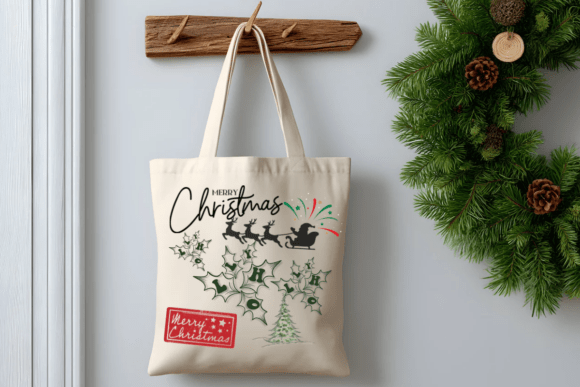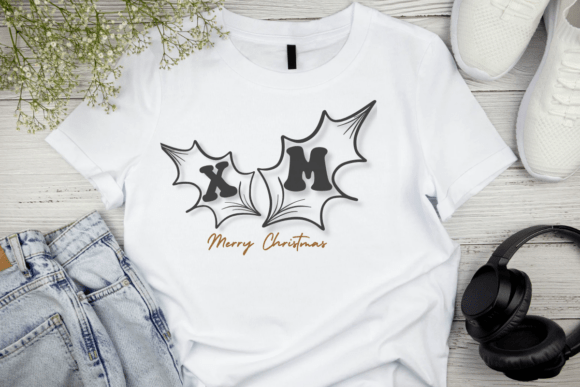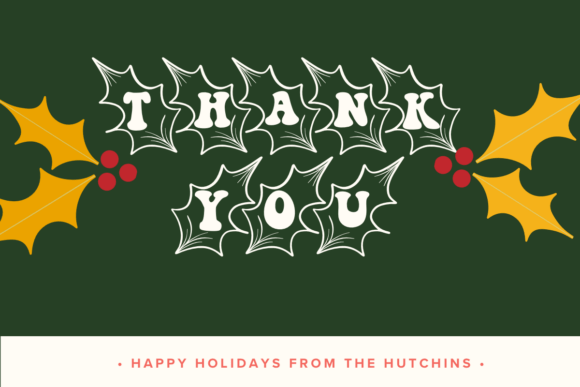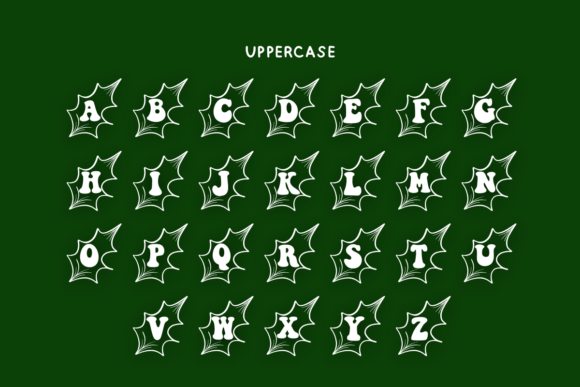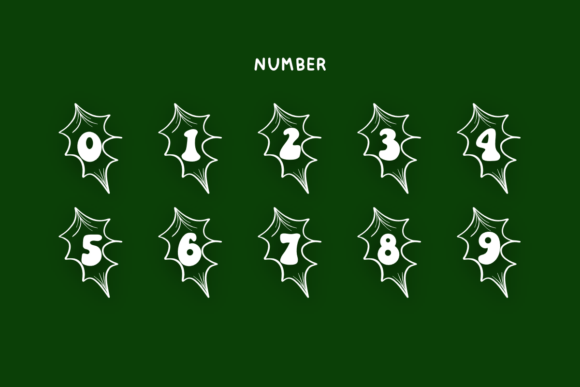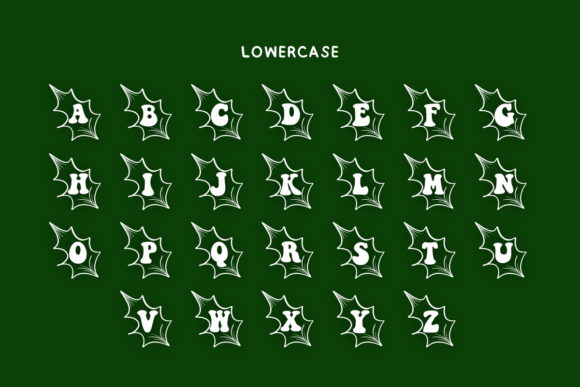
Deck the Halls with Christmas Holly Font: A Festive Decorative Typeface
As the holiday season approaches, designers and crafters are on the lookout for the perfect typography to add a touch of festive cheer to their creations. Look no further than the Christmas Holly Font, a charming and playful decorative typeface inspired by the iconic holly leaves and the joyful spirit of the holiday season.
What is Christmas Holly Font?
Christmas Holly Decorative Font is a specially designed typeface that captures the essence of the holiday season. Its unique and festive design is inspired by the holly leaves, berries, and twigs that are synonymous with Christmas. The font is perfect for creating eye-catching Christmas cards, gift tags, festive posters, greeting designs, and winter craft projects.
Key Features of Christmas Holly Font
- Festive Design: The Christmas Holly Font features a unique and festive design that is sure to add a touch of holiday cheer to any project.
- Handmade Touch: The font’s playful and charming design gives it a cozy, handmade feel that’s perfect for adding a personal touch to holiday creations.
- Versatile: The Christmas Holly Font is perfect for a wide range of projects, including Christmas cards, gift tags, festive posters, greeting designs, and winter craft projects.
Uses for Christmas Holly Font
The Christmas Holly Font is a versatile typeface that can be used in a variety of ways to add a touch of festive cheer to your holiday creations. Here are some ideas to get you started:
- Christmas Cards: Create eye-catching Christmas cards with the Christmas Holly Font. Add a personal touch with the font’s playful and charming design.
- Gift Tags: Add a festive touch to your gift tags with the Christmas Holly Font. Perfect for holiday gifts, party favors, and more.
- Festive Posters: Create festive posters with the Christmas Holly Font. Perfect for advertising holiday events, sales, and promotions.
- Greeting Designs: Add a touch of holiday cheer to your greeting designs with the Christmas Holly Font. Perfect for holiday-themed invitations, announcements, and more.
- Winter Craft Projects: The Christmas Holly Font is perfect for winter craft projects, such as scrapbooking, paper crafting, and more.
Tips for Using Christmas Holly Font
Here are some tips for using the Christmas Holly Font to add a touch of festive cheer to your holiday creations:
- Pair with Other Festive Fonts: Pair the Christmas Holly Font with other festive fonts to create a unique and eye-catching design.
- Add Festive Colors: Add festive colors, such as red and green, to your design to match the holiday theme.
- Experiment with Sizes: Experiment with different font sizes to create a visually appealing design.
- Use in Combination with Images: Use the Christmas Holly Font in combination with festive images, such as holly leaves and berries, to create a cohesive design.